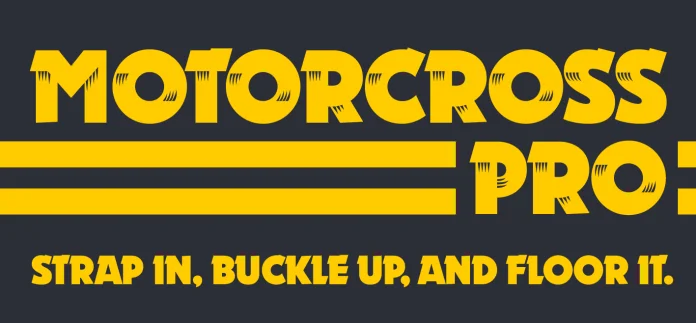
Motorcross Pro Font is perfect for extreme sports branding, motocross event posters, dirt bike racing graphics, adrenaline-fueled advertising, off-road vehicle logos, action sports merchandise, racing team jerseys, extreme competition materials, high-octane energy campaigns, and thrilling motorsport promotions.
Motorcross Pro Font is exciting because it captures the raw adrenaline and extreme intensity of motocross racing through aggressive, high-speed letterforms that convey danger, excitement, and professional athleticism with unstoppable energy. This powerfully designed typeface combines motorsport precision with extreme sports aesthetics, making it perfect for brands that want to communicate speed, courage, and championship-level performance in high-stakes competition environments.
The Motorcross Pro Font family includes aggressive racing weights with extreme sports styling, featuring high-speed design elements and professional motorsport variations. The font showcases dirt bike-inspired details, racing-optimized proportions, and adrenaline-fueled character characteristics that create a comprehensive typographic system for extreme sports and motorsport applications.
Motorcross Pro Font Free Download offers designers access to premium extreme sports typography that brings authentic motocross energy to contemporary racing design projects. This expertly engineered typeface has been developed to capture the professional intensity and dangerous excitement of dirt bike racing while ensuring optimal performance in high-impact marketing applications. The font's aggressive character and motorsport appeal make it ideal for extreme sports brands and racing organizations.
The extreme sophistication of Motorcross Pro Font makes it an invaluable tool for racing teams, extreme sports companies, and adrenaline-focused brands that need typography capable of communicating professional motorsport excellence and extreme athletic performance. The font's aggressive character helps establish immediate associations with speed, danger, and championship competition that appeal to thrill-seeking audiences and extreme sports enthusiasts.
Racing organizations, extreme sports retailers, and motorsport venues consistently choose Motorcross Pro Font for its ability to convey professional racing intensity and extreme sports authenticity through typography. The font excels in applications where establishing motorsport credibility and extreme appeal are essential to brand positioning, making it particularly effective for racing equipment, extreme sports marketing, and motorsport entertainment targeting adrenaline-seeking consumers.
This font's comprehensive character set includes racing-inspired letterforms, high-speed numerals, aggressive punctuation marks, and motorsport symbols that support authentic extreme sports typography composition. The consistent professional racing styling maintains the motocross theme throughout all characters while ensuring professional readability across all extreme sports and motorsport design projects requiring Motorcross Pro Font Free Download functionality.